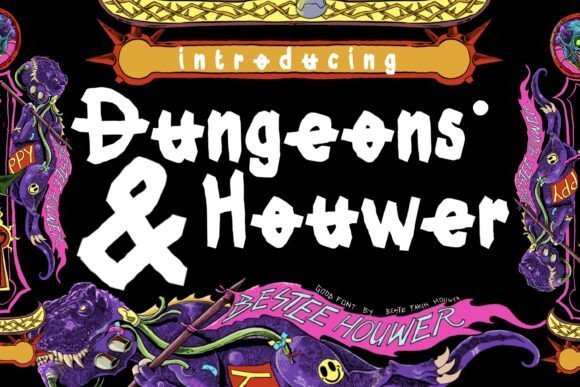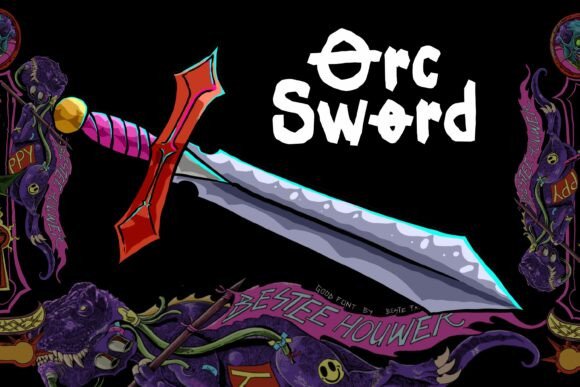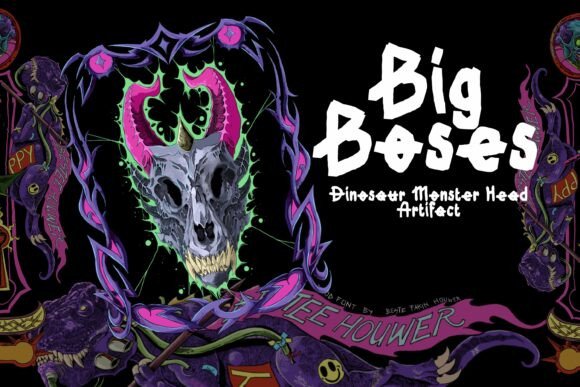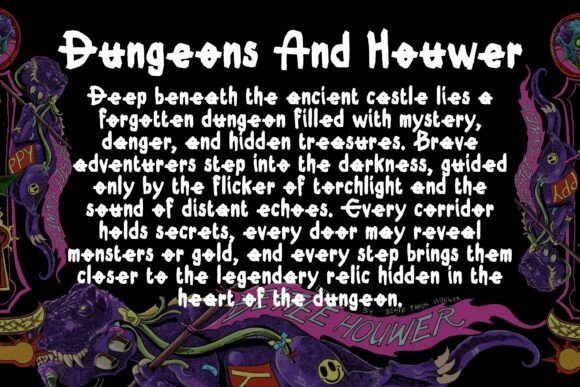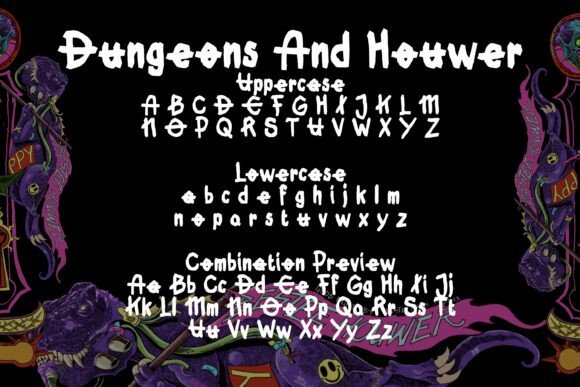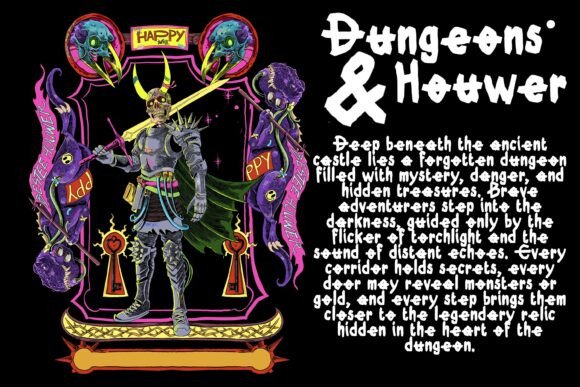
Unlocking the Secrets of Epic Typography
Have you ever found yourself huddled around a campfire, pouring over dusty tomes and ancient scrolls, searching for the next great adventure? The thrill of discovery, the rush of excitement, and the sense of mystery that comes with exploring the unknown is what drives many creatives to push the boundaries of their art. And it’s precisely this sense of wonder that the Dungeons and Houwer Font aims to capture.
This unique fantasy display font is designed to evoke the dark, adventurous spirit of fantasy worlds, perfect for dungeon-themed designs, gaming projects, movie titles, posters, branding, and epic typography needs. With its striking typeface, you’ll be able to bring mystery, power, and legendary vibes into your creative work.
Dungeons and Houwer Font Key Features
- Font Family: Dungeons and Houwer is a font family that includes multiple styles, such as regular, bold, and italic.
- Size and Resolution: The font is designed to work well at various sizes, from 10pt to 24pt, and is optimized for resolutions up to 300 DPI.
- Unique Characteristics: Dungeons and Houwer features a unique, hand-drawn design with intricate details and a fantasy-inspired aesthetic.
- Language Support: Supports a wide range of languages, including Latin, Cyrillic, and Greek alphabets, making it suitable for international designs.
- Font Size: The font family includes 6 weights, ranging from Thin to Black, offering flexibility for various design applications.
Dungeons and Houwer Font Review
At first glance, the Dungeons and Houwer Font is a unique and intriguing addition to the world of typography. Here’s my honest review:
- The font’s gothic-inspired design is visually striking and effectively captures the essence of medieval fantasy.
- The weight and texture variations add depth and nuance to the font, making it suitable for a wide range of applications.
- The font’s versatility extends to various digital platforms, including web design and mobile applications.
- The font’s readability can be compromised at smaller font sizes, making it less suitable for body text or long blocks of text.
- The design may be too bold or overpowering for certain applications, such as corporate or professional branding.
- The font’s unique aesthetic may not appeal to those who prefer more minimalist or modern typography.
Overall, I’d say the Dungeons and Houwer Font is a great choice for projects that require a bold, fantasy-inspired look. However, it’s essential to consider the potential limitations and ensure the font aligns with the project’s goals and target audience.
The Dungeons and Houwer Font is a unique and versatile font that can be used in various graphic design and writing applications. To get the most out of this font, it’s essential to understand its capabilities and limitations.